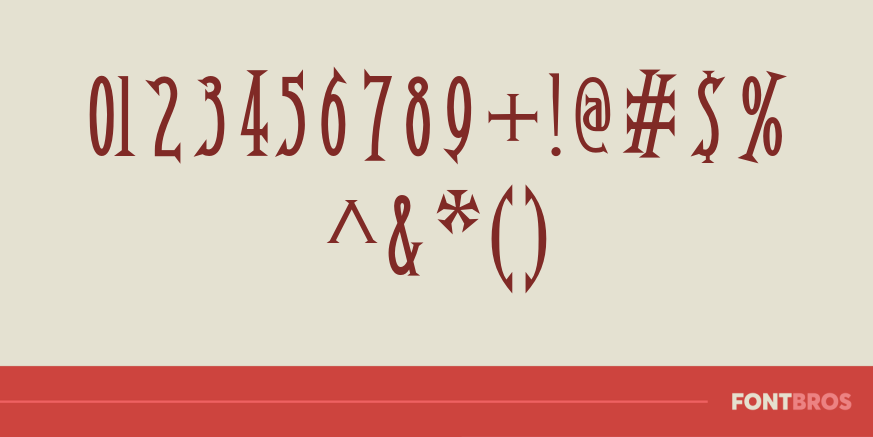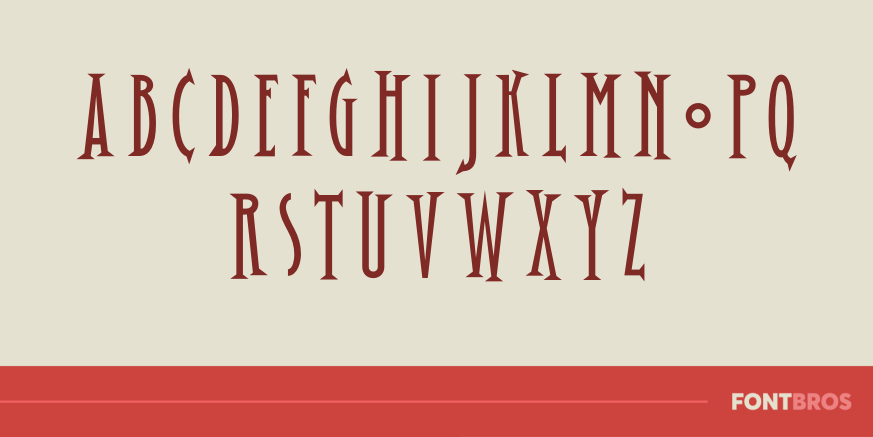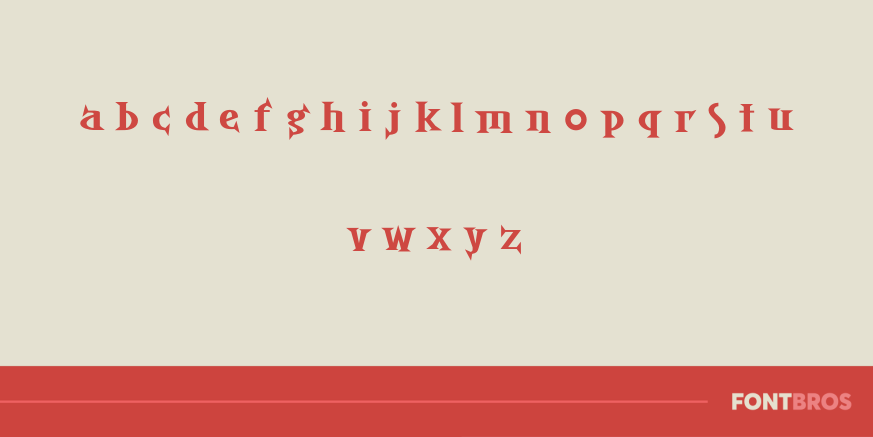
Jack Bisio
Font Family by Font Diner
Some typefaces are mysterious, like this one?its origins are an enigma wrapped within a riddle, indeed. While its letterforms may be shrouded in secrecy, this design is sure to make a fine addition to your typographic arsenal, so we recommend you go try it out.